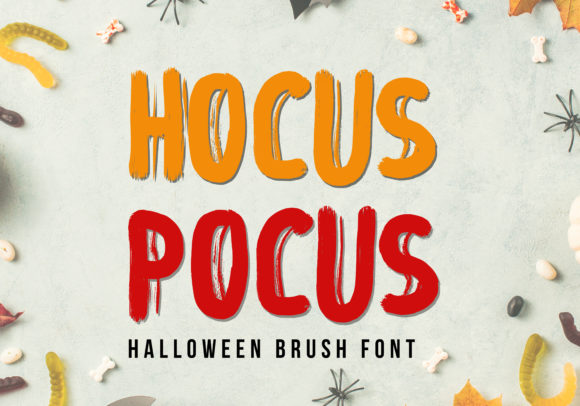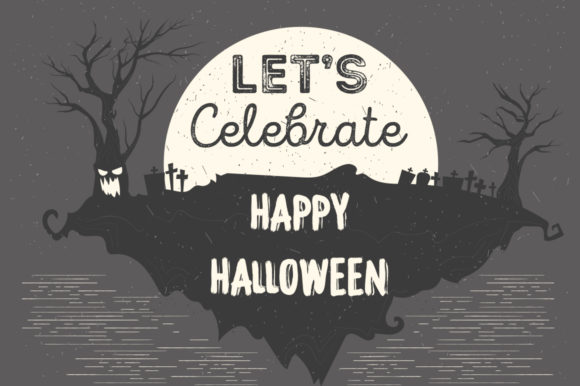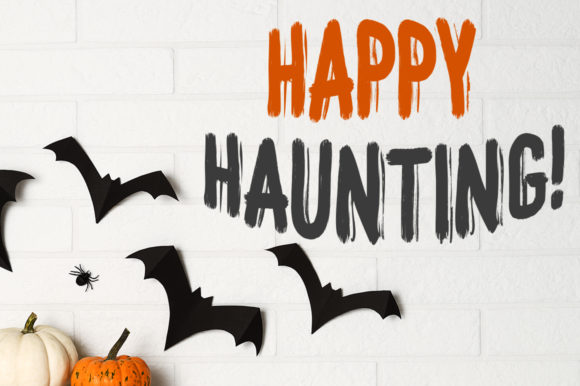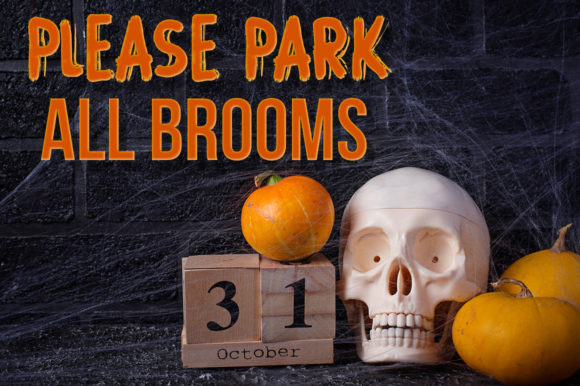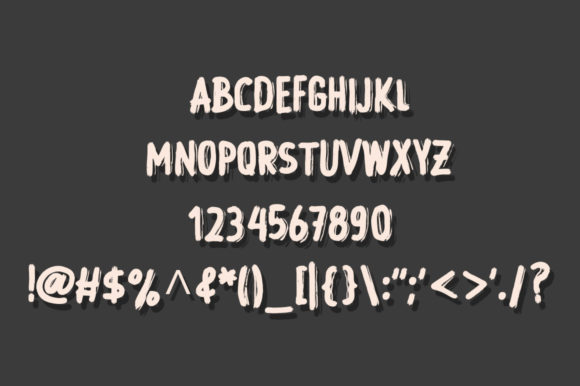
Introduction to Hocus Focus Font
As designers, we’ve all been there – staring at a blank canvas, struggling to find the perfect font to bring our creative vision to life. The search for that elusive, magical font can be a daunting task, but what if I told you that your search is over? Enter the Hocus Focus Font, a simple yet spellbinding display font that’s sure to cast a spell on your designs.
This free download is a game-changer for designers looking for a high-quality, unique font to elevate their creative projects. With its transparent background and eerie charm, the Hocus Focus Font is perfect for adding a touch of whimsy to your Halloween designs, making it a valuable resource for designers who want to stand out from the crowd.
Key Features of Hocus Focus Font
- Unique characteristics include a modern, minimalist aesthetic and a versatile style suitable for various design applications
Honest Review: Hocus Focus Font
I recently came across the Hocus Focus Font, and I was excited to give it a try. As a designer, I’m always on the lookout for high quality design resources that can elevate my creative projects.
Here are some things that work well with the Hocus Focus Font:
- The transparent background makes it easy to use in a variety of design contexts.
- The font is highly customizable, which is perfect for designers who like to experiment with different styles.
- It’s a great choice for anyone looking for a unique and eye-catching font for their creative project.
- The font may not be suitable for large blocks of text, as it can be a bit difficult to read.
- It’s not a versatile font for body text, and may be better suited for headings and titles.
Overall, I’m impressed with the Hocus Focus Font. While it may have some limitations, it’s a great choice for designers who are looking for a unique and high quality font for their creative projects.
Hocus Focus Font
Hocus Focus Font is a free design resource ideal for creative projects requiring high-quality typography. Its transparent background makes it versatile for use in various design applications.
Tips for Getting the Most Out of Hocus Focus Font
Experiment with font sizes, colors, and combinations to achieve the desired effect. Use Hocus Focus Font as a base font and pair it with other fonts for a unique look.